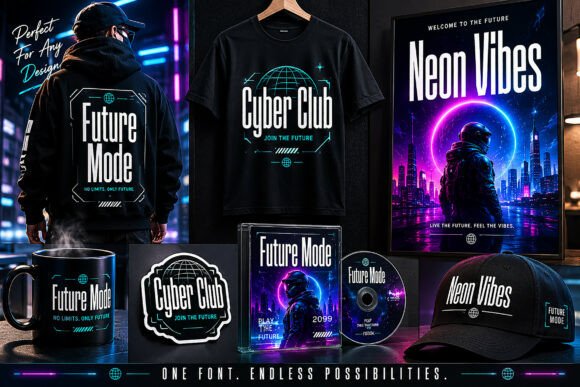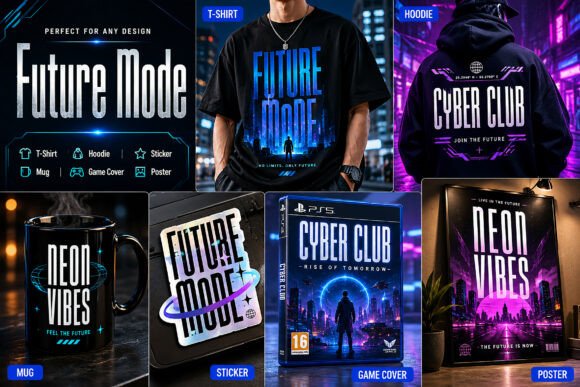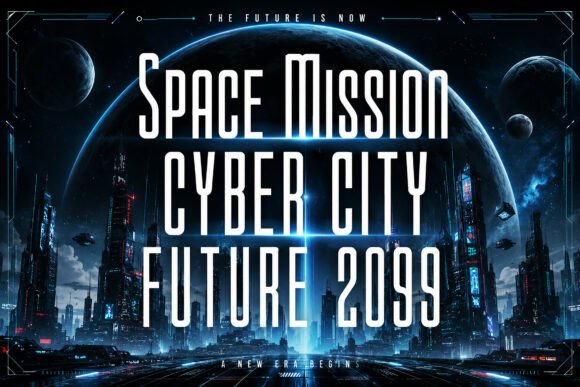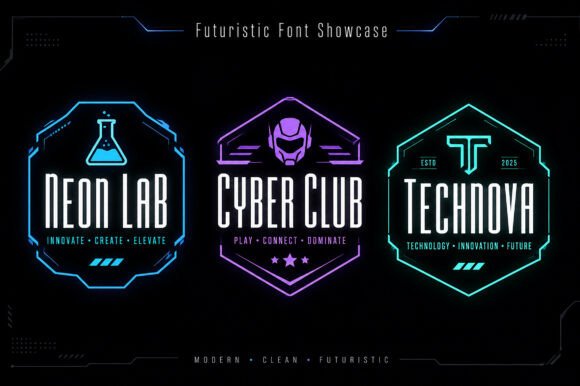
The Birth of a New Era: Futuristic Designs Awaits
Have you ever found yourself scrolling through a sci-fi movie trailer, mesmerized by the futuristic cityscapes and sleek digital interfaces? The moment when the title of the movie appears on screen, and you’re hit with a wave of excitement and anticipation, is a perfect example of how a well-designed font can elevate a visual experience. That’s exactly what the Futuristic Font is designed to do – transport you to a world of cutting-edge technology and innovation.
As a designer, you’re constantly on the lookout for the perfect font to give your projects that extra oomph. That’s where the Futuristic Font comes in – a modern display font that combines minimalism and innovation to deliver a strong, futuristic impact. With its clean geometric structure and sleek appearance, this font is perfect for creating eye-catching designs that will leave a lasting impression.
Futuristic Font Key Features
- Unique Characteristics: Futuristic Font features a bold, futuristic aesthetic with geometric shapes and a metallic sheen, making it perfect for sci-fi, technology, and futuristic designs.
- Font Styles: The font family includes five styles: Regular, Bold, Italic, Bold Italic, and Outline, offering flexibility and versatility for various design applications.
Futuristic Font Review
I recently had the chance to work with the ‘Futuristic Font’, and I must say, it’s an interesting choice. Here’s what I think about it:
- Unique aesthetic: The font has a distinctive, otherworldly feel that’s perfect for futuristic or sci-fi themed designs.
- Highly legible: Despite its unusual appearance, the font is surprisingly easy to read, even at smaller font sizes.
- Good for emphasis: The font’s bold, dramatic feel makes it well-suited for use in headings or titles where you want to draw attention.
- Limited flexibility: The font’s futuristic style may not be suitable for all types of projects or audiences, particularly those that require a more traditional or conservative look.
- Lack of nuance: The font’s bold, dramatic feel can make it feel a bit one-dimensional, lacking the subtlety and nuance of more traditional fonts.
Overall, I think the ‘Futuristic Font’ is a solid choice for projects that require a bold, futuristic look. However, it may not be the best choice for more traditional or conservative designs. With careful use, it can add a unique touch to your designs, but it’s essential to consider the context and audience before making a final decision.
For the best results, use the Futuristic Font in combination with bold colors and futuristic graphics.
- Sci-fi movie posters
- Technology company logos
- Future-themed infographics